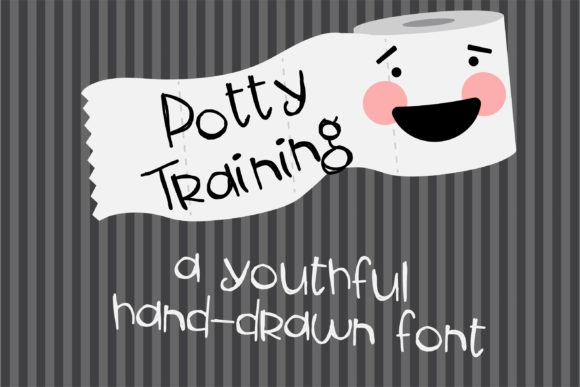
Leap into the Realm of Enchantment with Potty Training Font: Where Whimsy Meets Learning!
Step into a world of imagination and playful learning with Potty Training Font, a charming script typeface designed to spark creativity and bring a smile to every child's face. This delightful font family, crafted with utmost care by Illustration Ink, invites you to embrace the magic of childhood and create projects that capture the essence of wonder and joy.
Potty Training Font: A Symphony of Whimsy and Educational Delight
With its enchanting handwritten style, Potty Training Font captivates the hearts of young learners, making the process of potty training a joyous adventure. Its whimsical strokes and playful charm add a touch of magic to any project, transforming mundane tasks into extraordinary experiences.
Embrace the Childlike Spirit Within: Unleash Your Creativity
Let your imagination soar as you explore the endless creative possibilities offered by Potty Training Font. Its childlike playfulness sets the stage for captivating storytelling, vibrant illustrations, and cheerful designs that resonate with young minds. From colorful worksheets to enchanting bedtime stories, this font transforms ordinary words into works of art.
Perfect for Kids and School Projects: Ignite a Love for Learning
Potty Training Font is the ultimate companion for any educational project, igniting a passion for learning in children of all ages. Whether crafting engaging lesson plans, designing interactive worksheets, or creating fun and educational posters, this font captivates attention and makes learning an enjoyable experience.
Beyond the Classroom: A Font for All Occasions
Potty Training Font transcends the boundaries of the classroom, extending its charm to a myriad of creative endeavors. Its versatility shines in invitations, greeting cards, social media posts, and even website designs. With its ability to evoke a sense of wonder and nostalgia, this font adds a touch of magic to any project, leaving a lasting impression on all who encounter it.